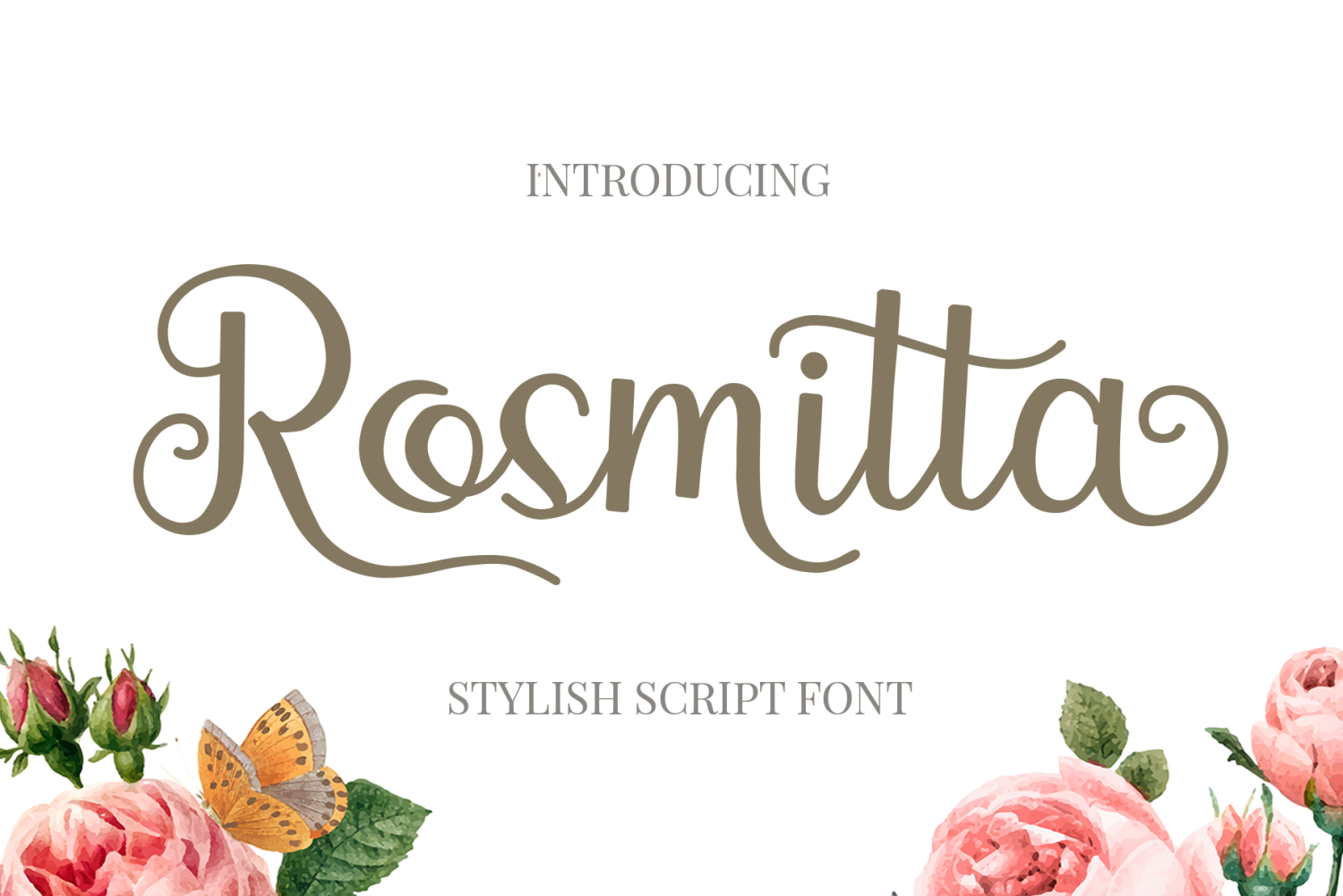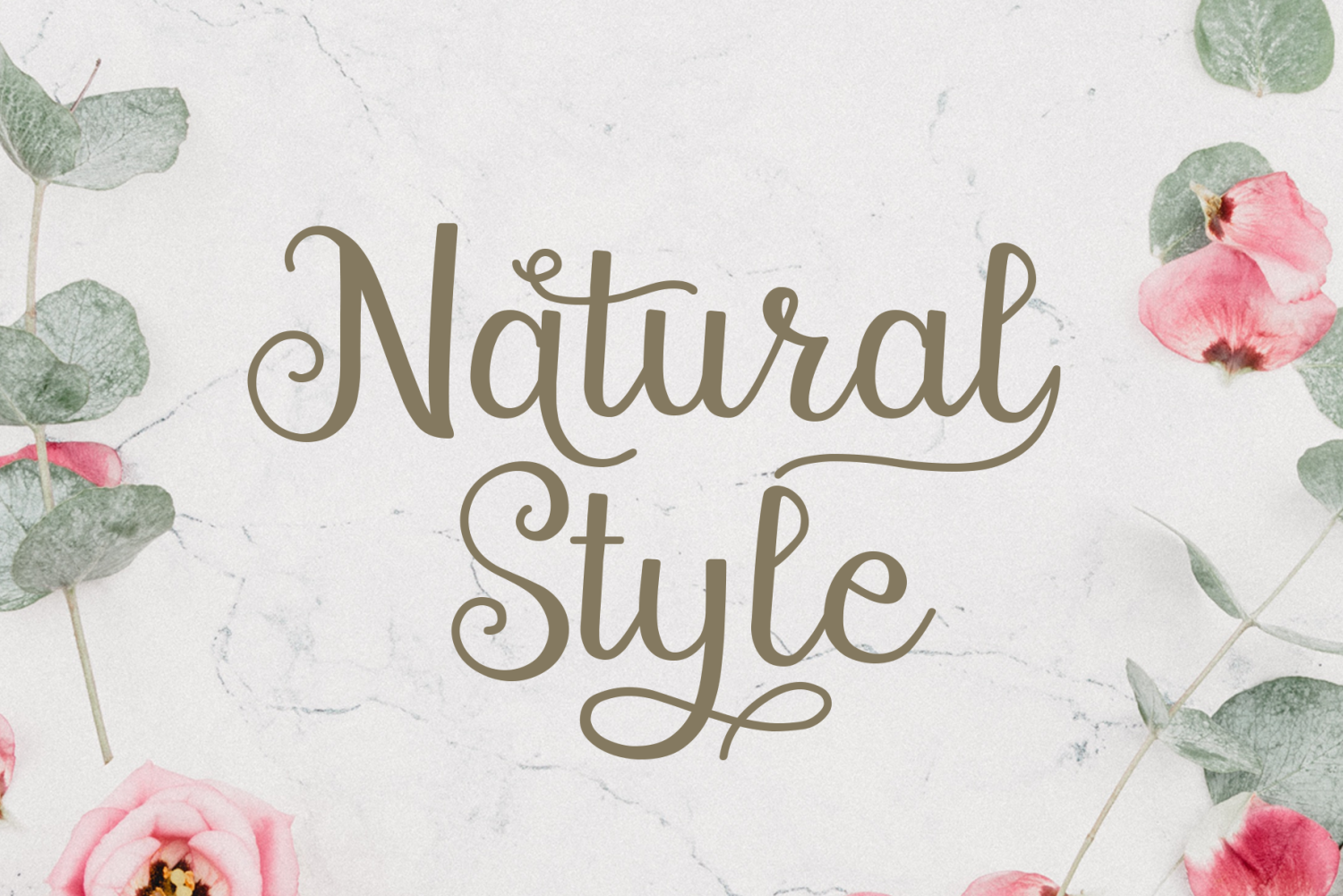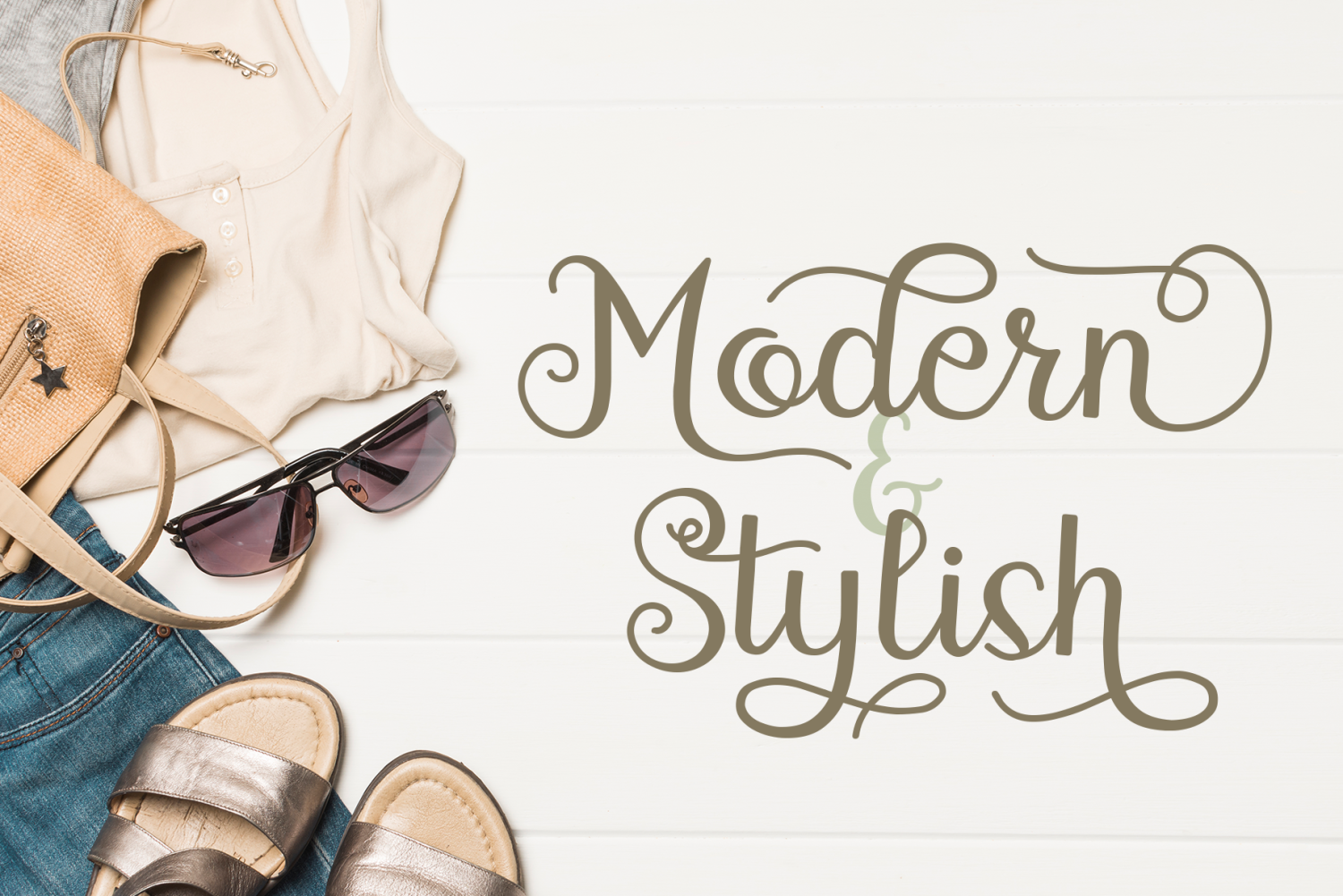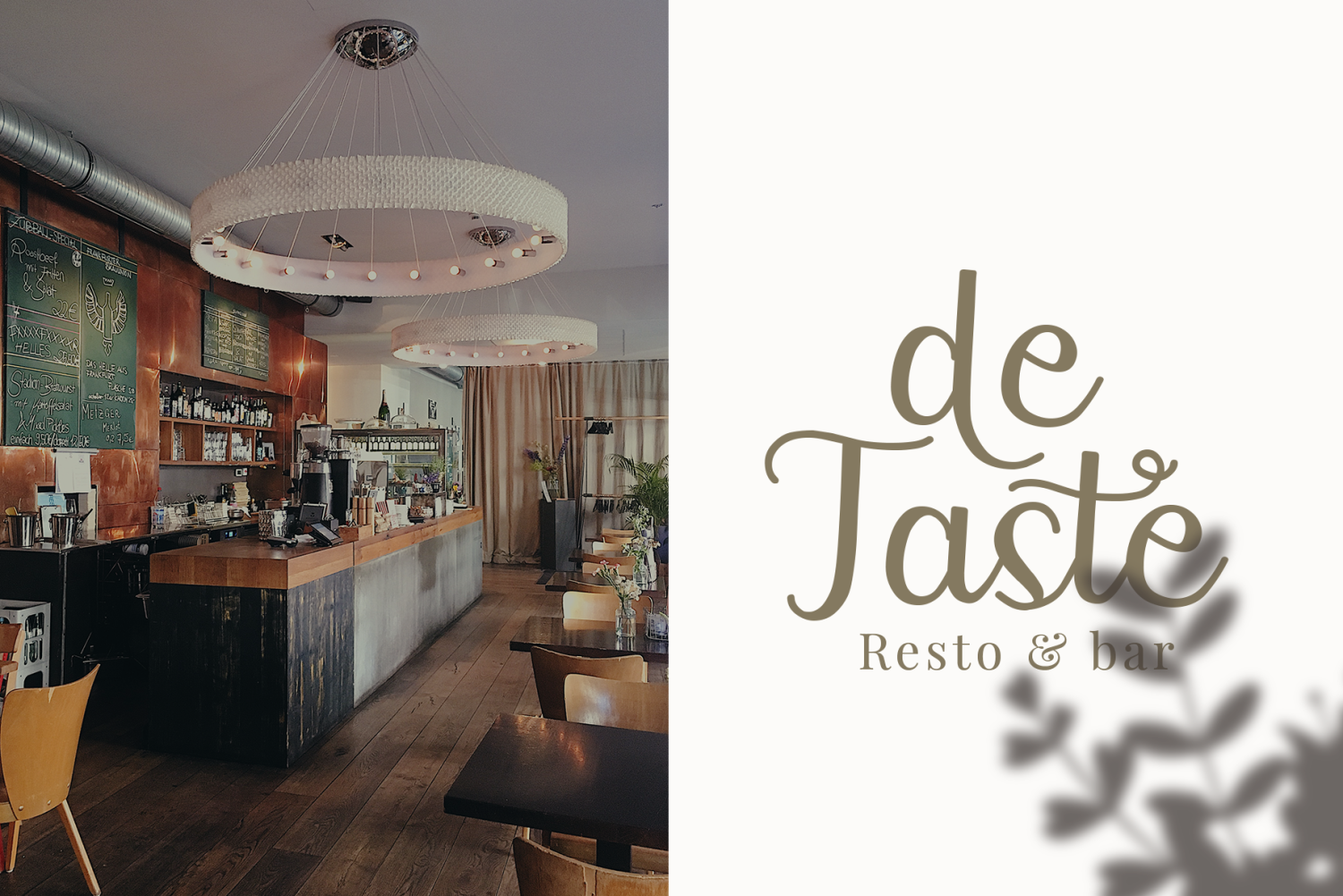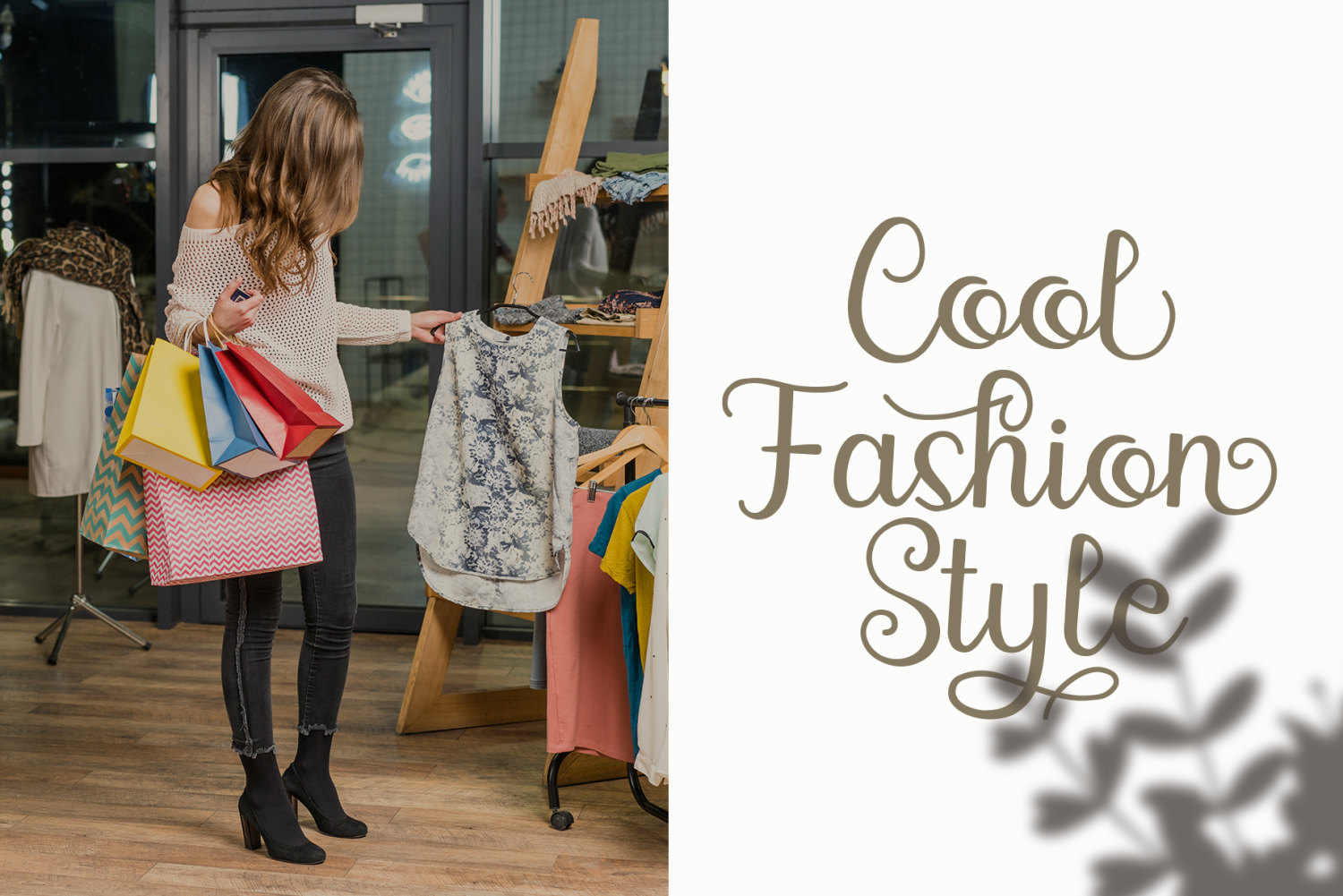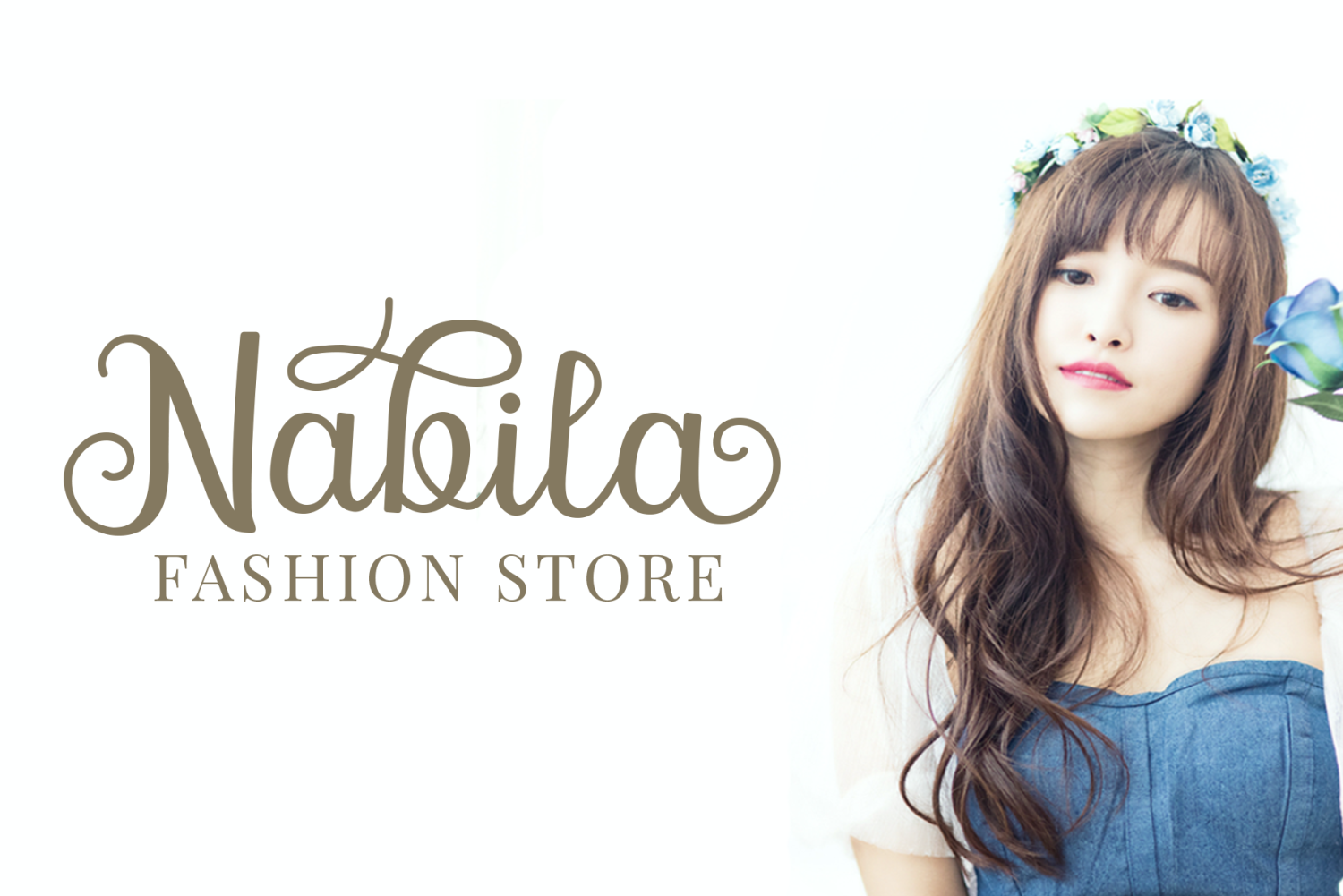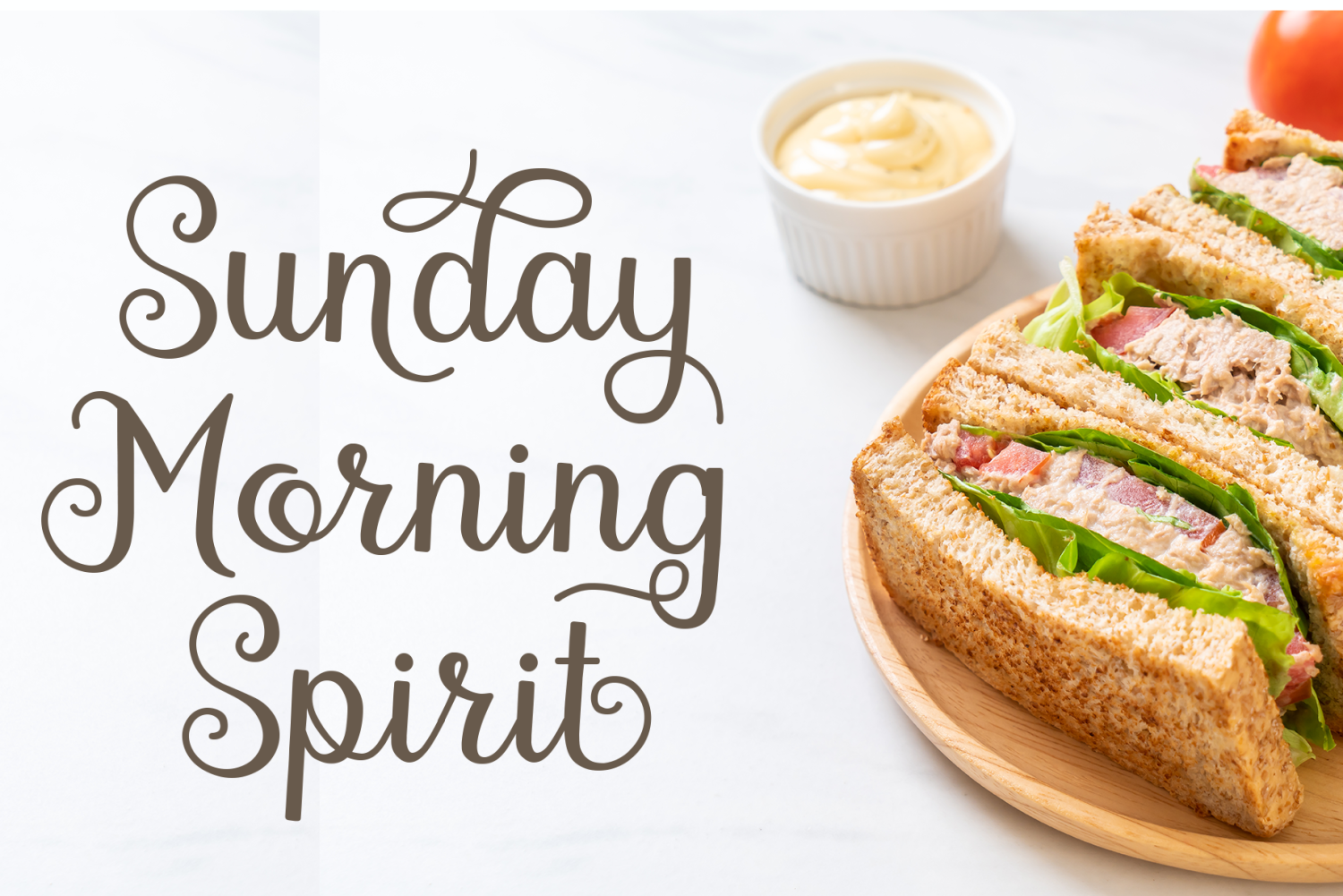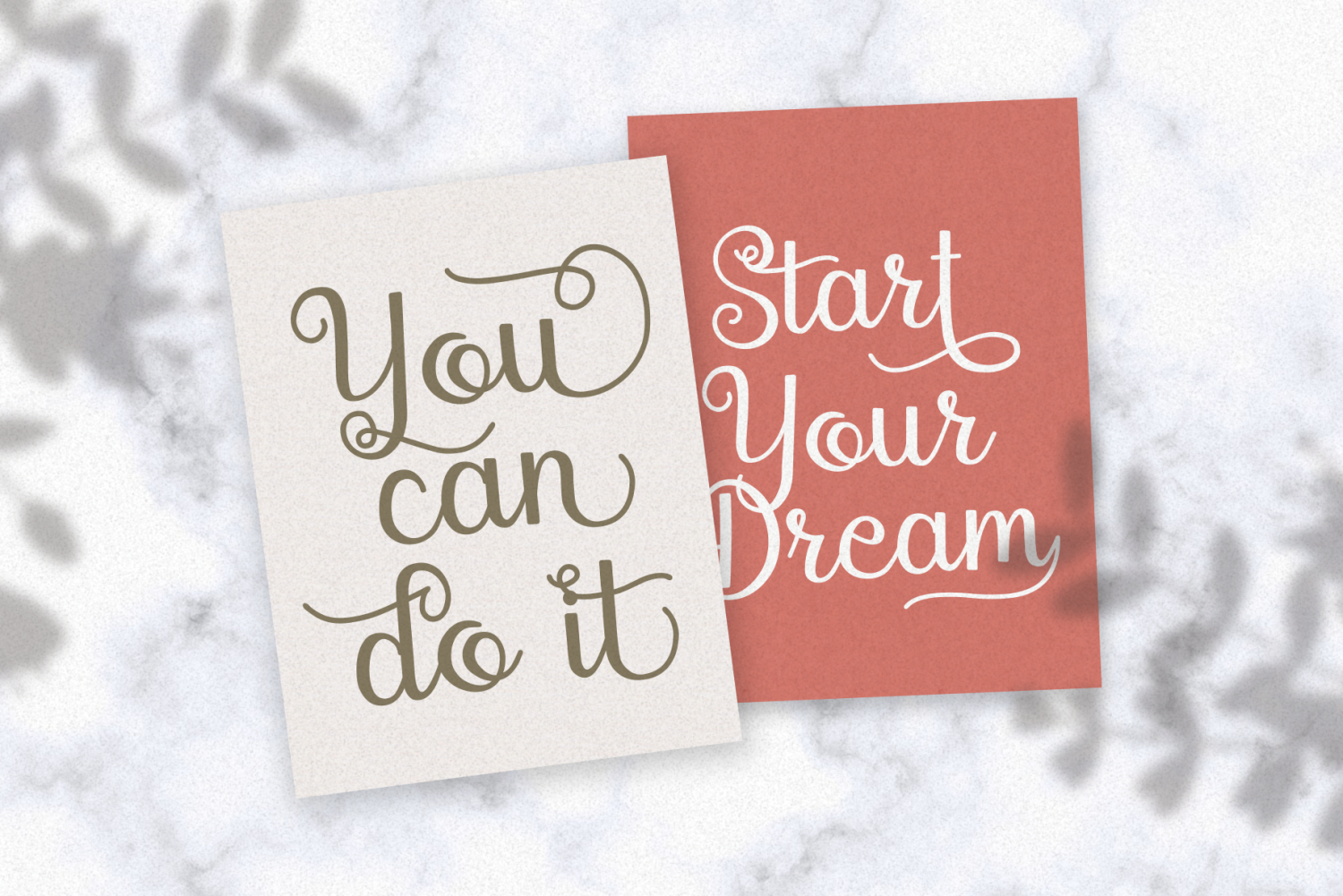
Rosmitta Script Font
Rosmitta Script Font is a new modern and fresh upright script style. This font will make your design look elegant, natural and stylish.
Rosmitta Script Font is a new modern & fresh upright script style. This font will make your design look elegant, natural and stylish.
Rosmitta Script Font is perfect for any awesome projects such as photography, watermark, quote design, social media posts, advertisements, logos and branding, invitation, product designs, label, stationery, wedding designs, product packaging, special events or any project that need handwriting taste.
- Stylistic alternate & ligature